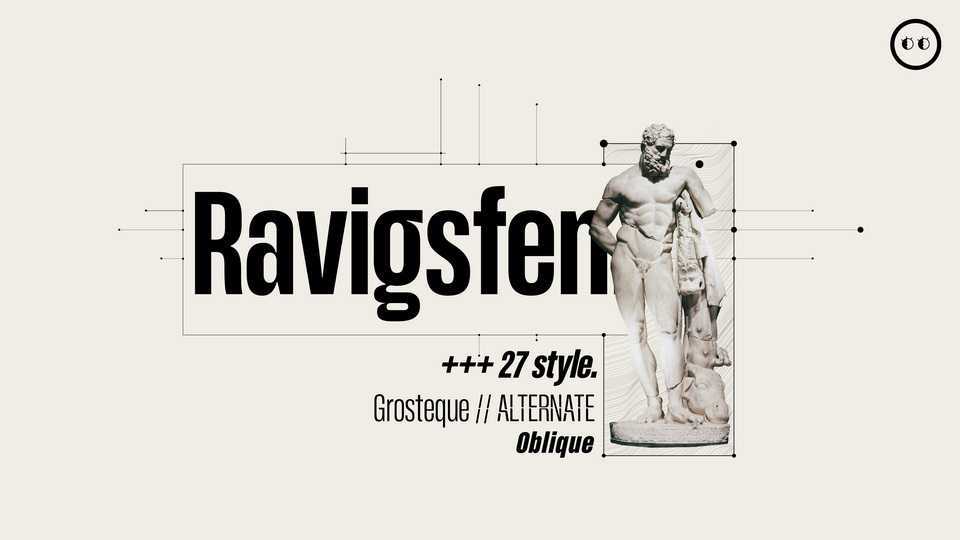
Download ZT Ravigsfen font, a sans-serif grotesque typeface that celebrates the style and audacity of classic sci-fi, this font takes users on a journey through time. ZT Ravigsfen offers boundless flexibility to embrace any design project.